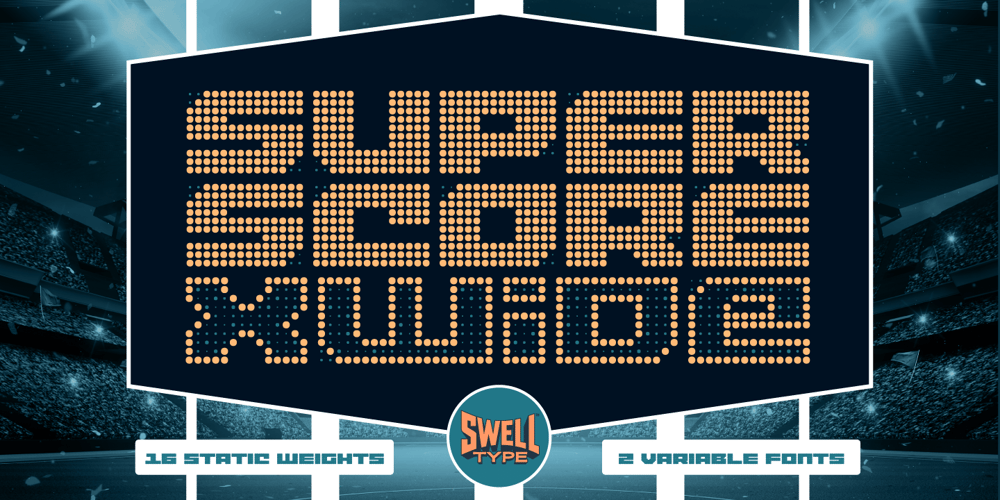
Superscore XWide Font Family was designed by John Roshell and published by Swell Type. Superscore XWide contains 18 styles and family package options. Inspired by 1970s & ’80s stadium displays, Superscore is a display font alight with vintage vibes and modern features!Superscore XWide includes 16 static weights and two Variable Fonts. Each weight features two sets of Stylistic Alternates (Square and Mono), support for 221 languages, and an economical three (count ’em) kerning pairs. Use the Variable controls to set the brightness and amount of “Flux”, or variation, in the brightness. Animate to create glowing & sparkling effects!